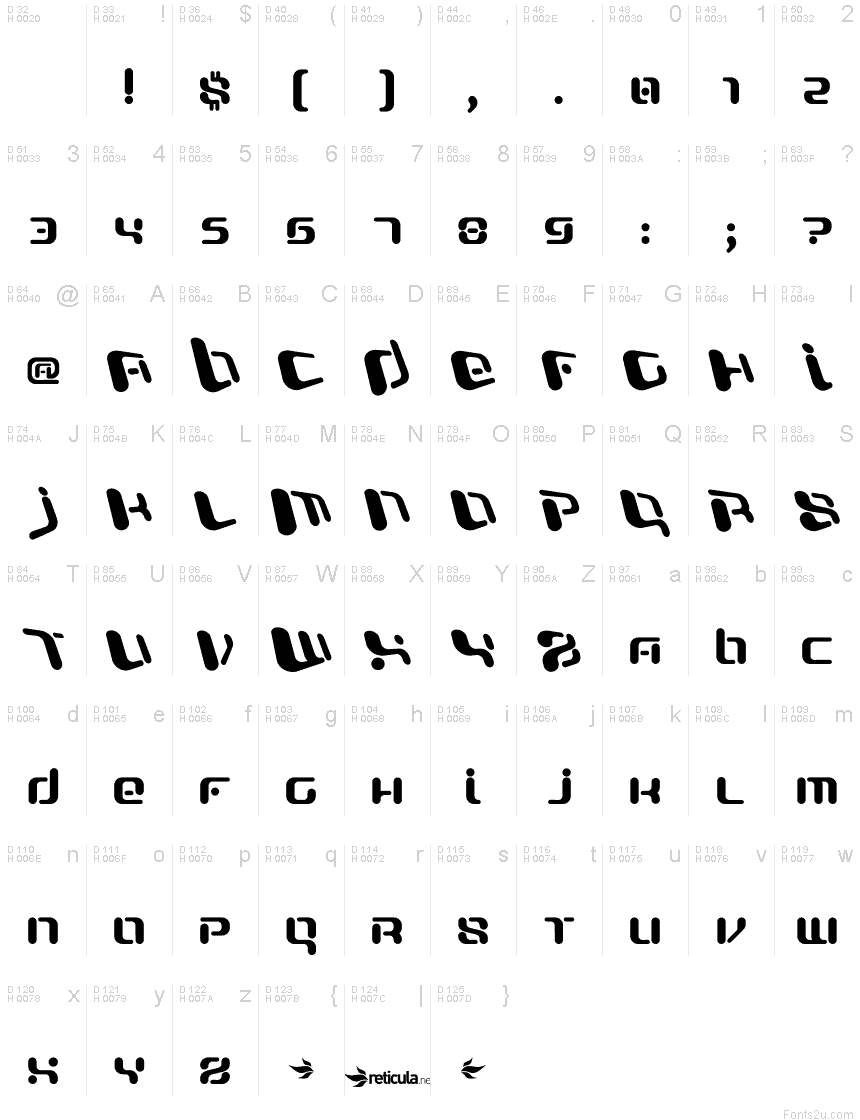
Officer X
Officier X is a bold, futuristic display font designed by ViNZ. Its expanded width and angular, geometric letterforms evoke a sense of power and technological advancement. The font's sharp, angular edges and distinctive curved terminals lend it a striking, almost militant aesthetic that could lend a sense of authority and command to titles, branding, or sci-fi-inspired design projects.
Officier X's expansive width and bold presence make it well-suited for use in large-scale applications such as posters, signage, or header text, where it can make a bold visual statement.